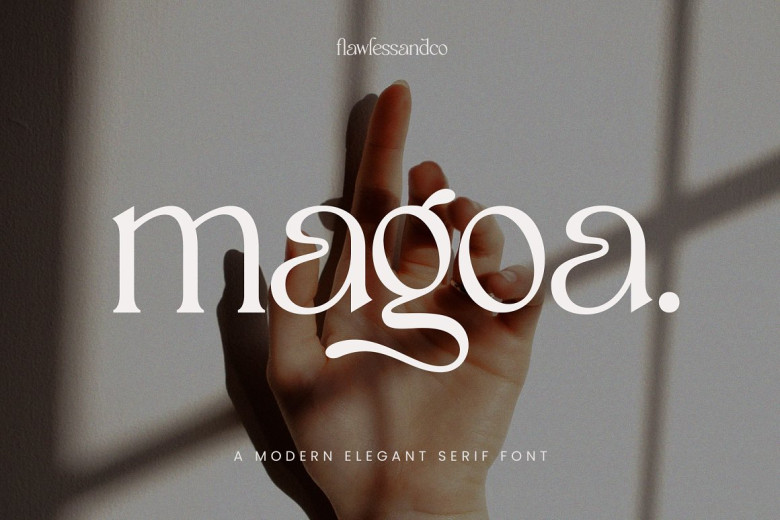
Magoa Font
Magoa- Modern Elegant Serif Fonts for Logos, Procreate, Cricut and Cricut Users is an Elegant Font that makes logos stand out and branding easy! Boho Modernity meets elegance in our “Magoa” Modern Font. Ideal for logos, invitations, master heads and more – check it out today!
Magoa Serif Font